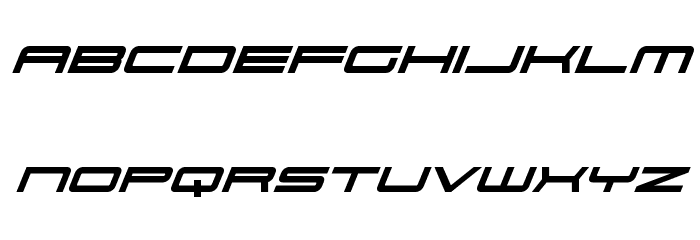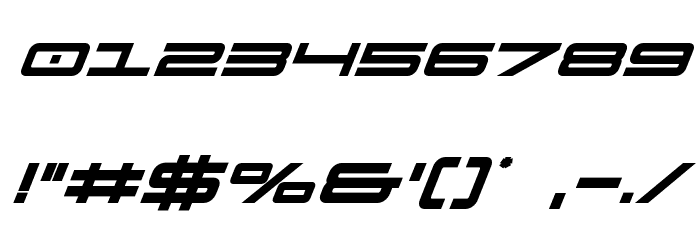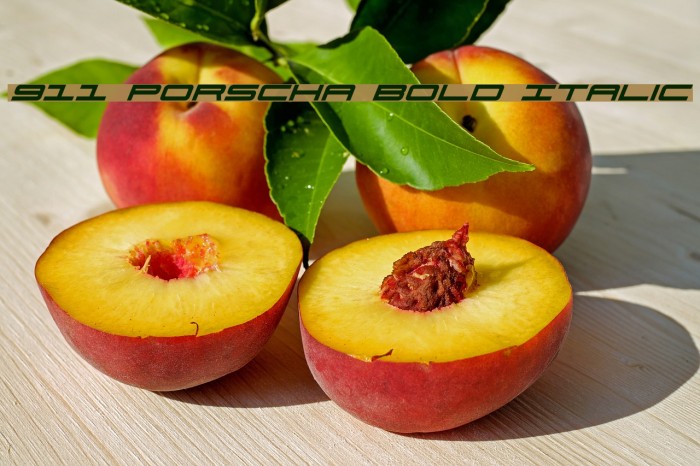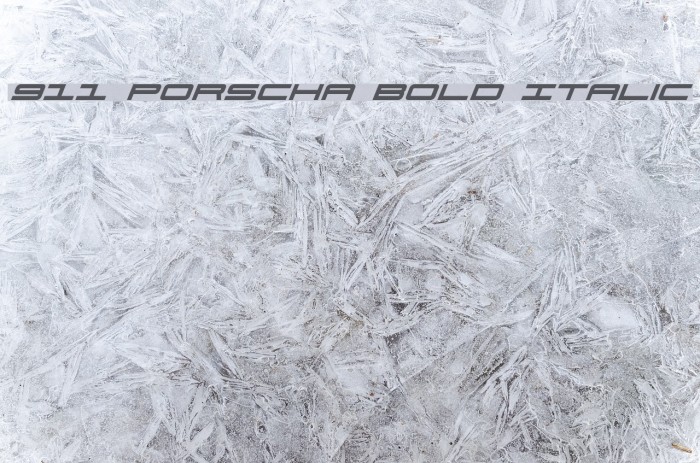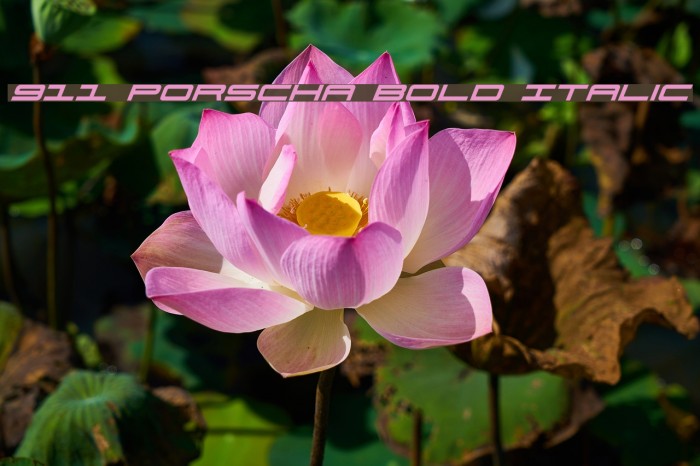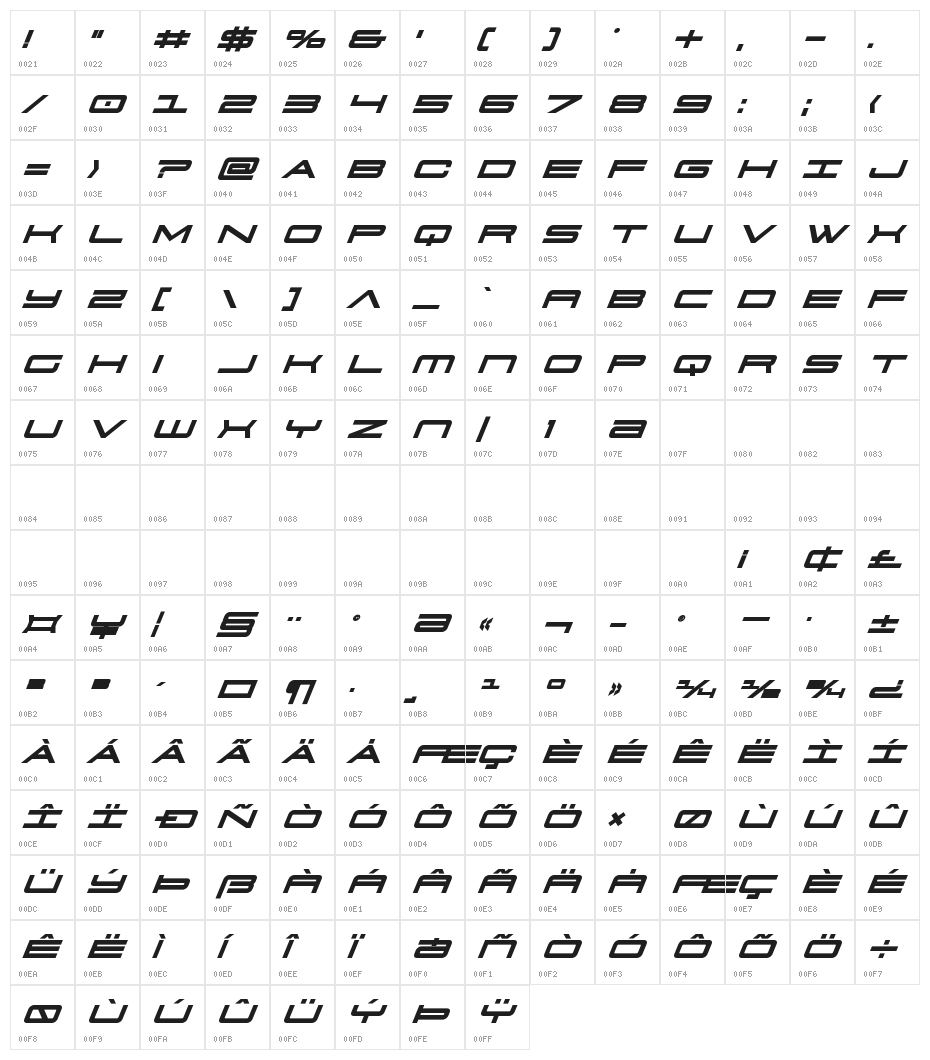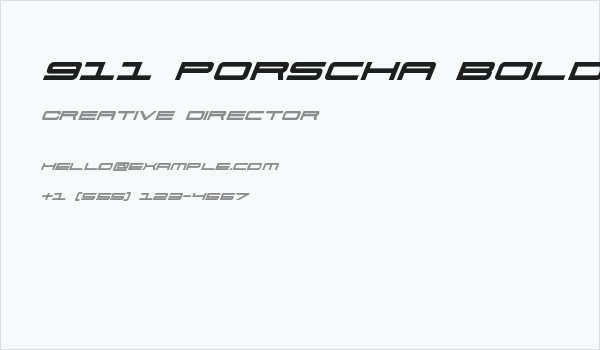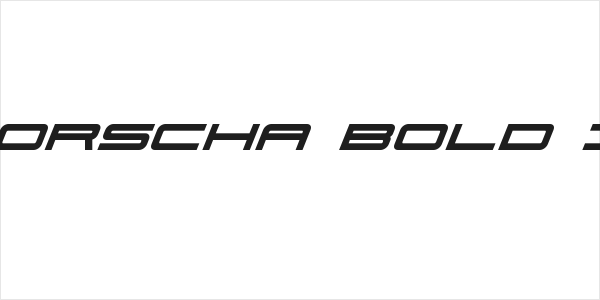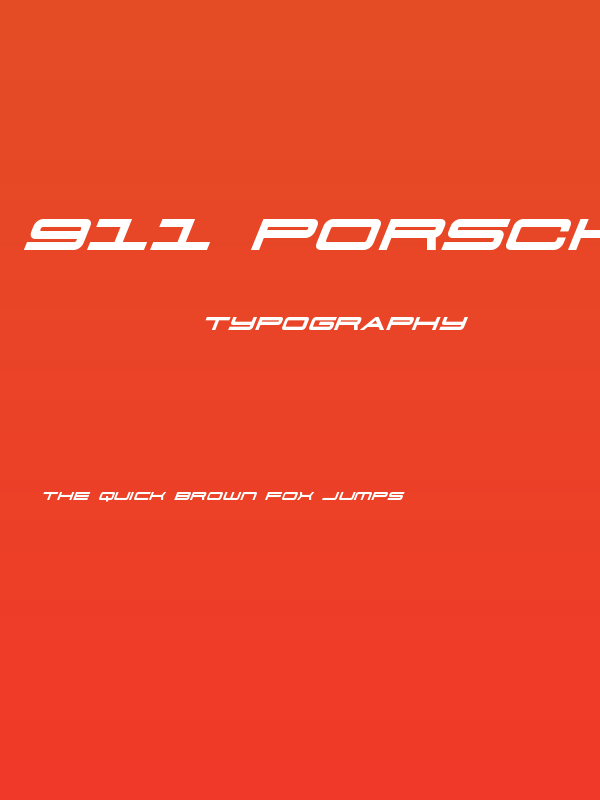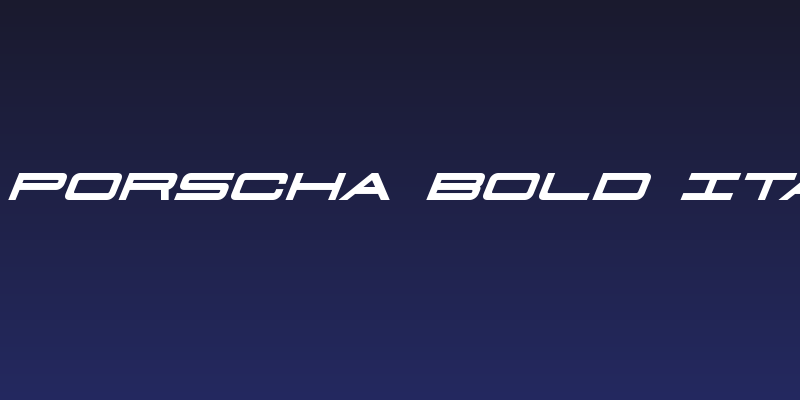
911 Porscha Bold Italic Font
This font exhibits a sleek, modern design with a strong italic slant, giving it a dynamic and forward-moving appearance. The characters are bold, with a consistent stroke width that maintains a sense of uniformity and strength. The angular cuts and sharp edges contribute to a futuristic and high-tech aesthetic, making it ideal for projects that require a sense of speed and innovation. The uppercase and lowercase letters are well-proportioned, with a slight inclination that enhances the overall sense of motion. The numerals and special characters follow the same design principles, ensuring a cohesive look across all text elements.
A bold, italic font with a modern, dynamic design and futuristic appeal.
- Proposed Projects: Ideal for automotive branding, technology logos, sports team merchandise, and dynamic advertising campaigns.
- Use Case: Logos, Headlines